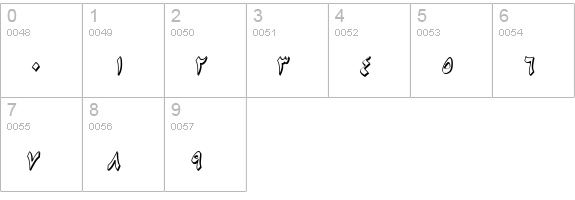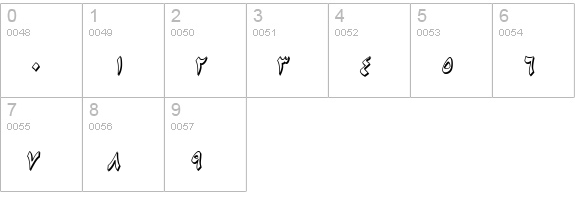
B Niki Shadow Italic Font Details
B Niki Shadow Italic is a distinctive, italic variant in the B typeface family \xE2\x80\x94 well suited to design and typography projects.
The B Niki Shadow Italic font is a sleek and modern typeface that exudes sophistication and elegance. Its unique shadow effect adds depth and a touch of drama to any design project. The italicized style lends a sense of movement and fluidity to the text, making it perfect for conveying a sense of style and sophistication. What sets this font apart is that it is available for free download at FontsMarket.com. This means that you can easily access and use this stunning typeface in your projects without any hassle or cost. Whether you're working on a branding project, a website design, or any other creative endeavor, the B Niki Shadow Italic font is sure to make a lasting impression with its stylish and contemporary aesthetic. Download it today and elevate your designs with this versatile and eye-catching typeface.